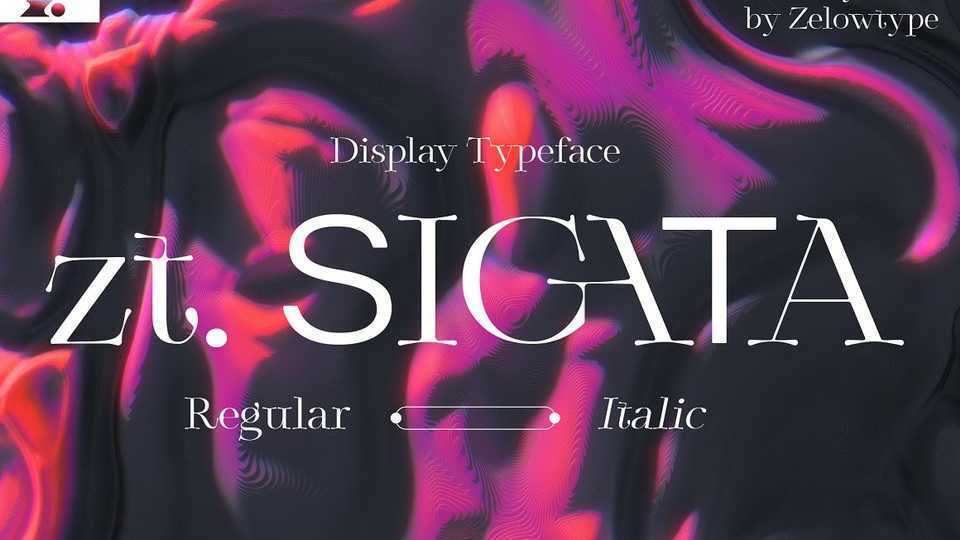
Download Zt Sigata font, an experimental typeface combining sans serif and serif styles. Zt Sigata font with the serif style water droplets in the foliage that present coolness in every word and simple style sans serif with softness on each side.